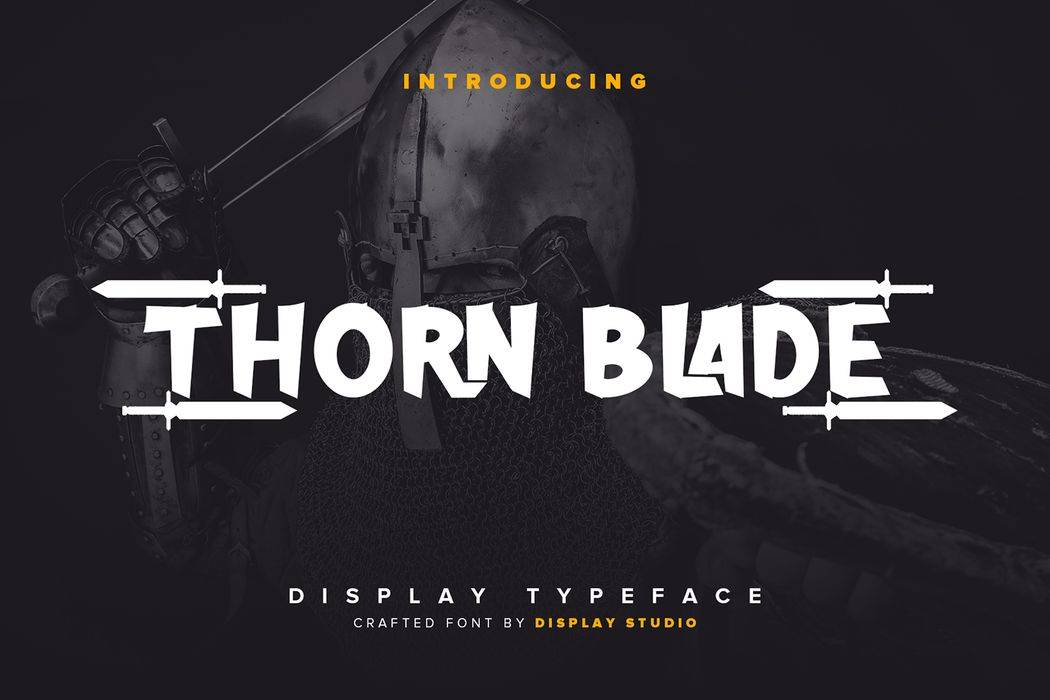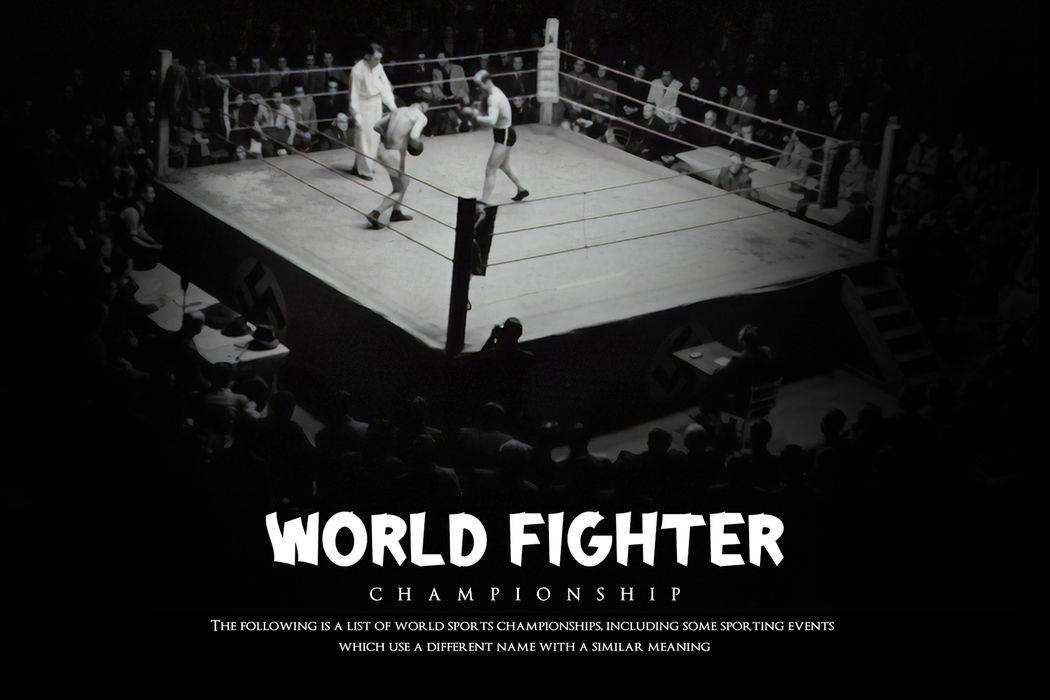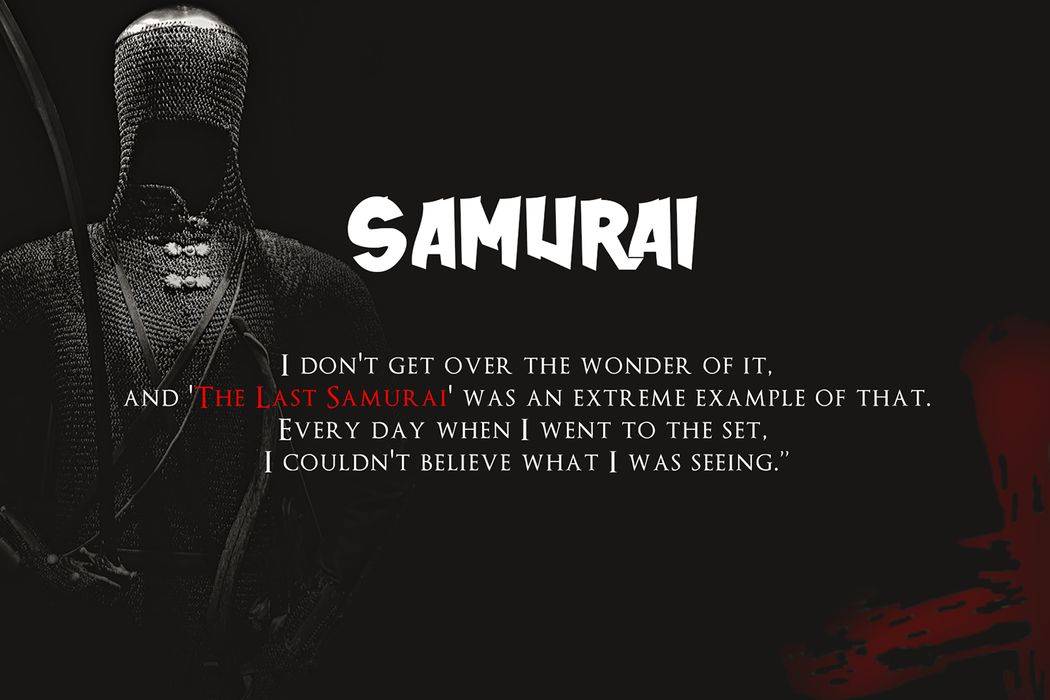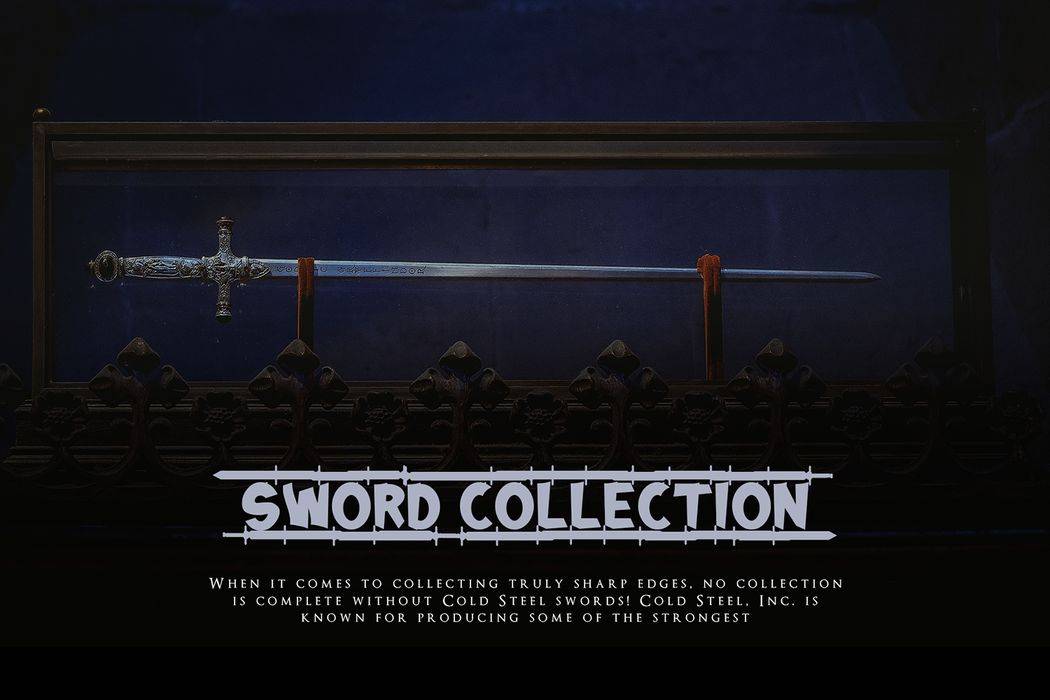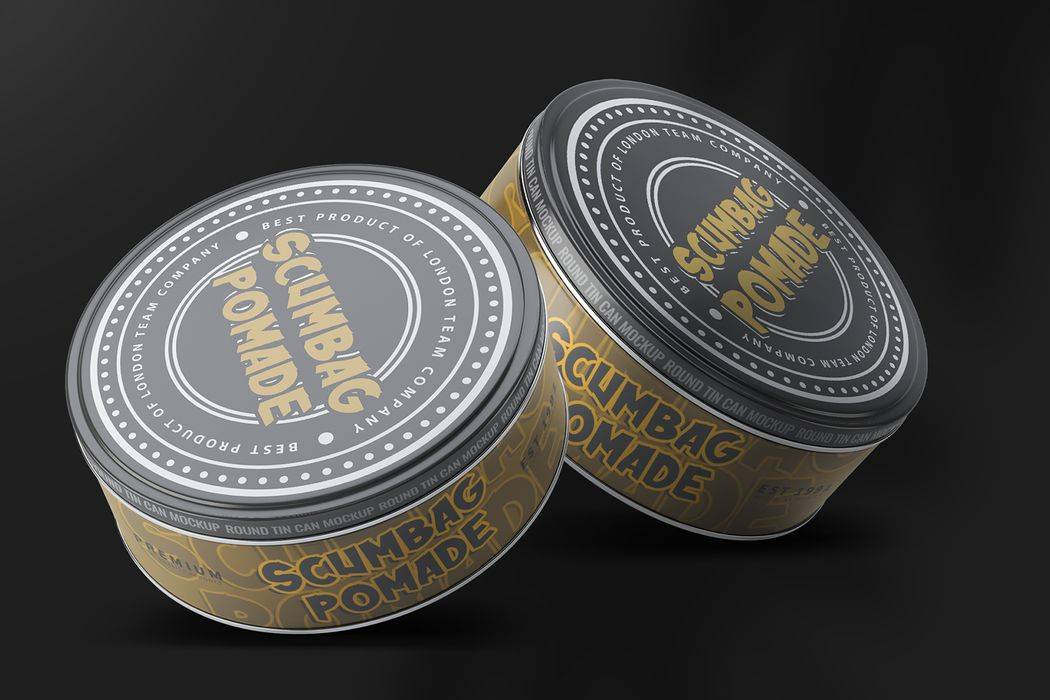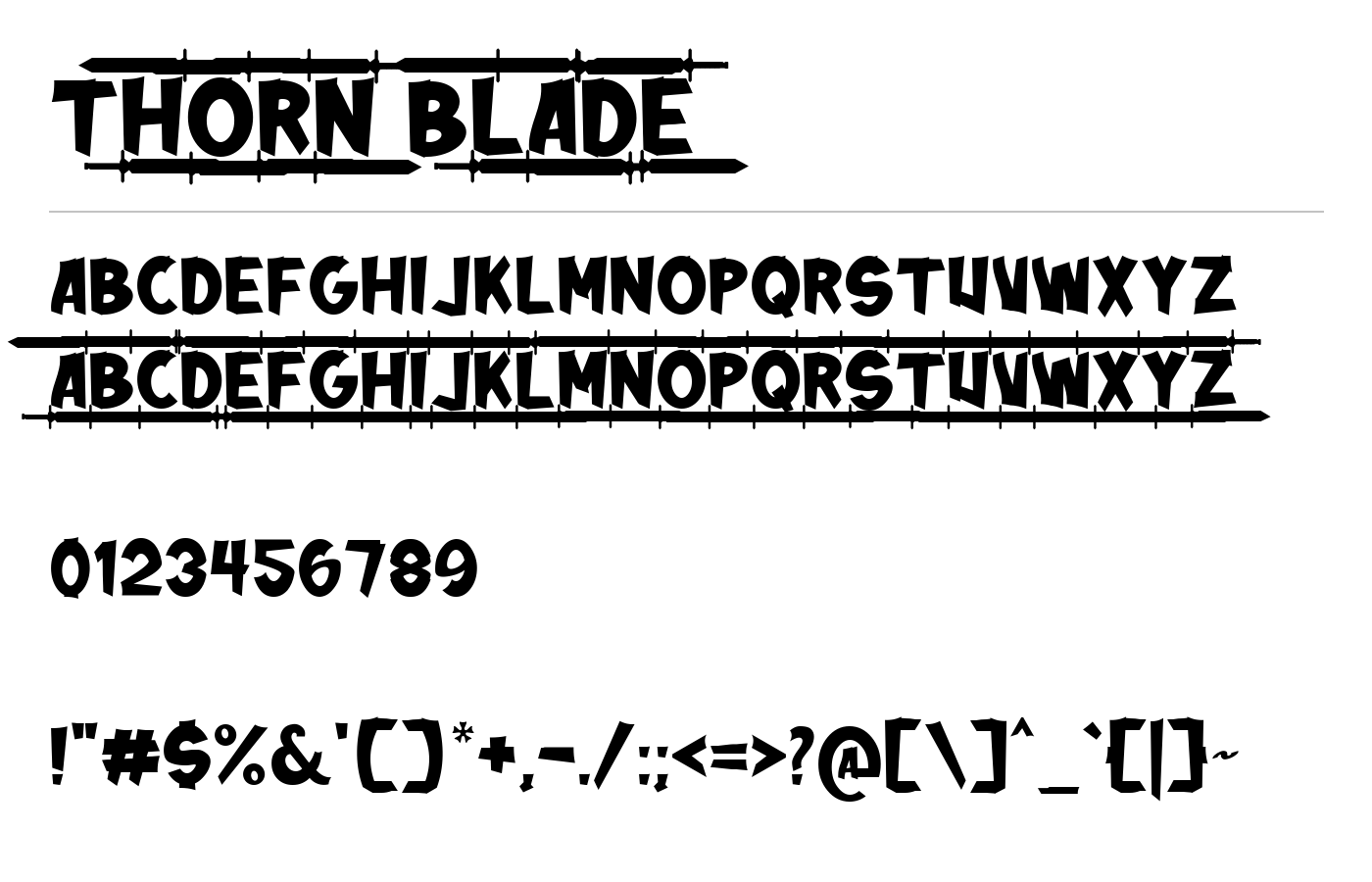
Thorn Blade is a bold, playful sans serif font with irregular, slightly jagged edges that give it a hand-crafted, edgy feel. Its quirky letterforms and thick strokes make it perfect for fun, eye-catching headlines, logos, or branding that wants to convey a sense of adventure or creativity. This font works well in contexts that need a strong, memorable personality with a touch of rebellious charm.
Thorn Blade Font
About Thorn Blade Font